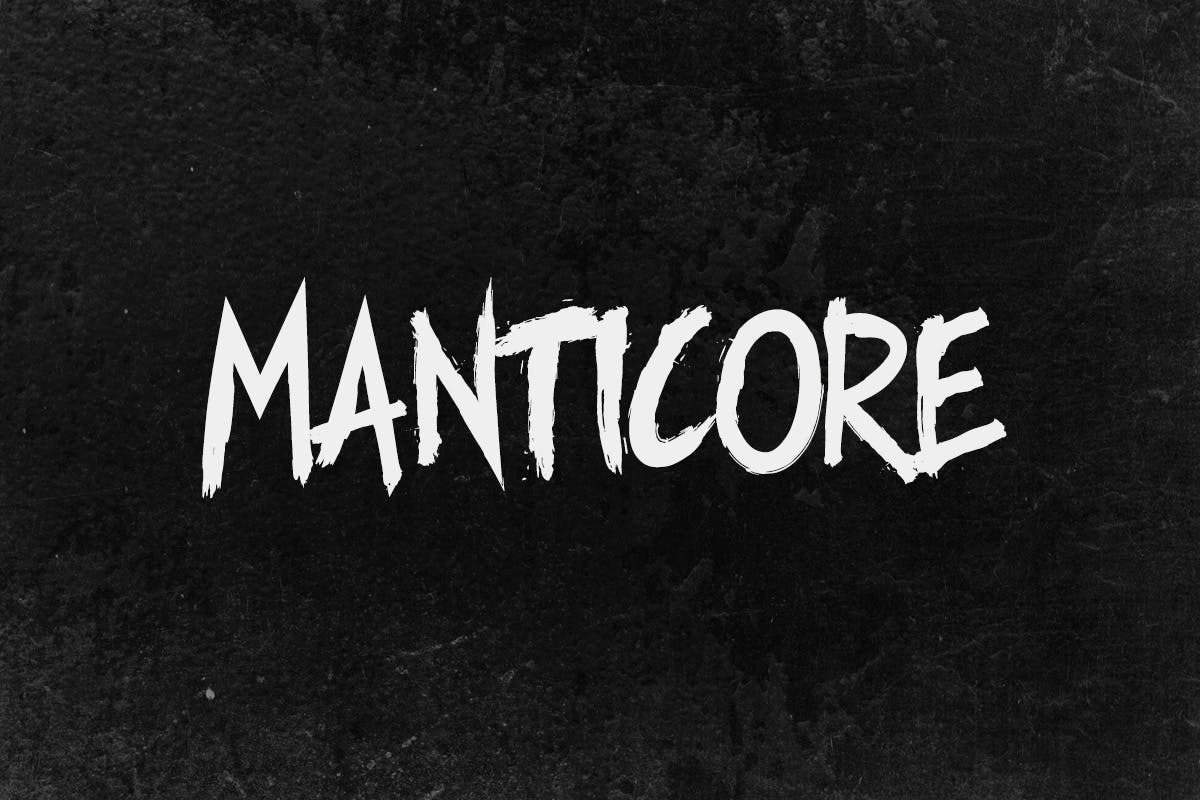
Manticore - Brush Font
A bold brush/marker font in all caps. Includes numerals, punctuation, couple of extra glyphs and alternates for some letters.
I've found the font great for '80s style prints, horror themed stuff or any punk/grunge/urban themed graphics.